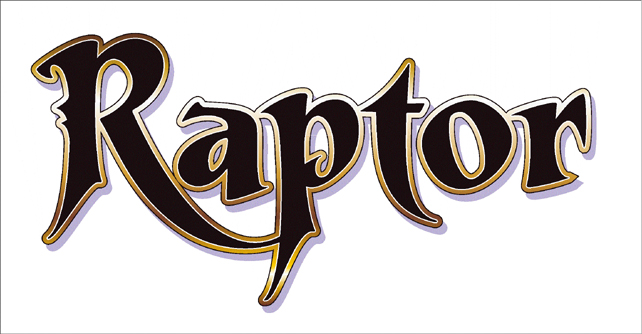
Your thoughts on Chisel Fonts
Besides the chisels,
does anyone have any good leads to other signfonts?
I'm lookin.
Kr3 check out steves other fonts as you stated excellent Signfonts
He has many fonts all are well done from an old school signmaker.
OK, I think I have decided to not do chisels. This font will stand on its own
without gimmicks. I don't use chisel myself very much, I do like to
create them, but six font files is just too much.
I could not resist tricking-it-out with a chrome bevel though...:Big Laugh
I also have never used a chisel font for vinyl lettering. Your new font, Raptor , is very nice. I would use the chiseled version for printing.
OH GREAAAAAAAAATTTTTTTTT!!!!!!
Now your listening to BOB...........Great really Great........
Very nice font you have there Steve.........Very Nice
I like chisel fonts but rarely use them. They have their place in some designs and look great when in the right application. When I need something unusual I will hand letter something then get it to a file.
Yeah keep designing the chiseled fonts, we always need another good font.
I'm workin on a font that is bold and filled with photos of naked women..Do you think I can chisel it?
Just the edges.
I did some work on it over the week end, and have decided that one of
the three versions will be a chisel. Of course as with all my chisel fonts,
it can be used with or without the chisel.